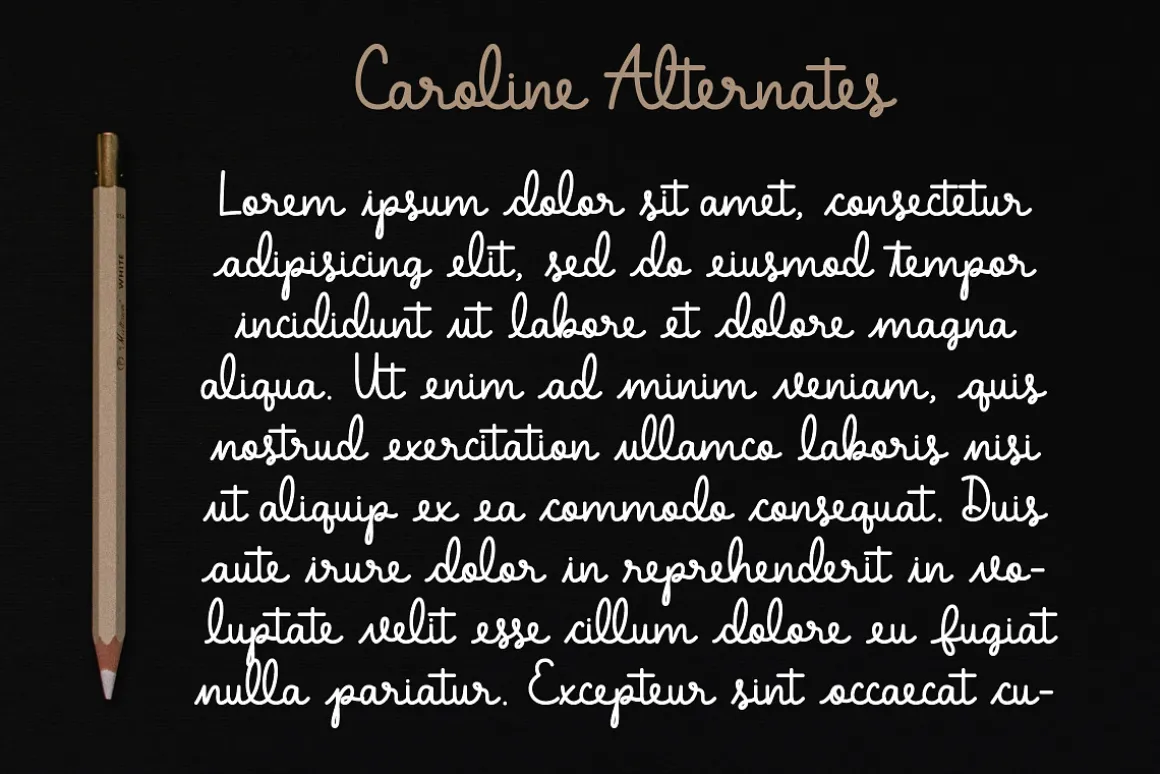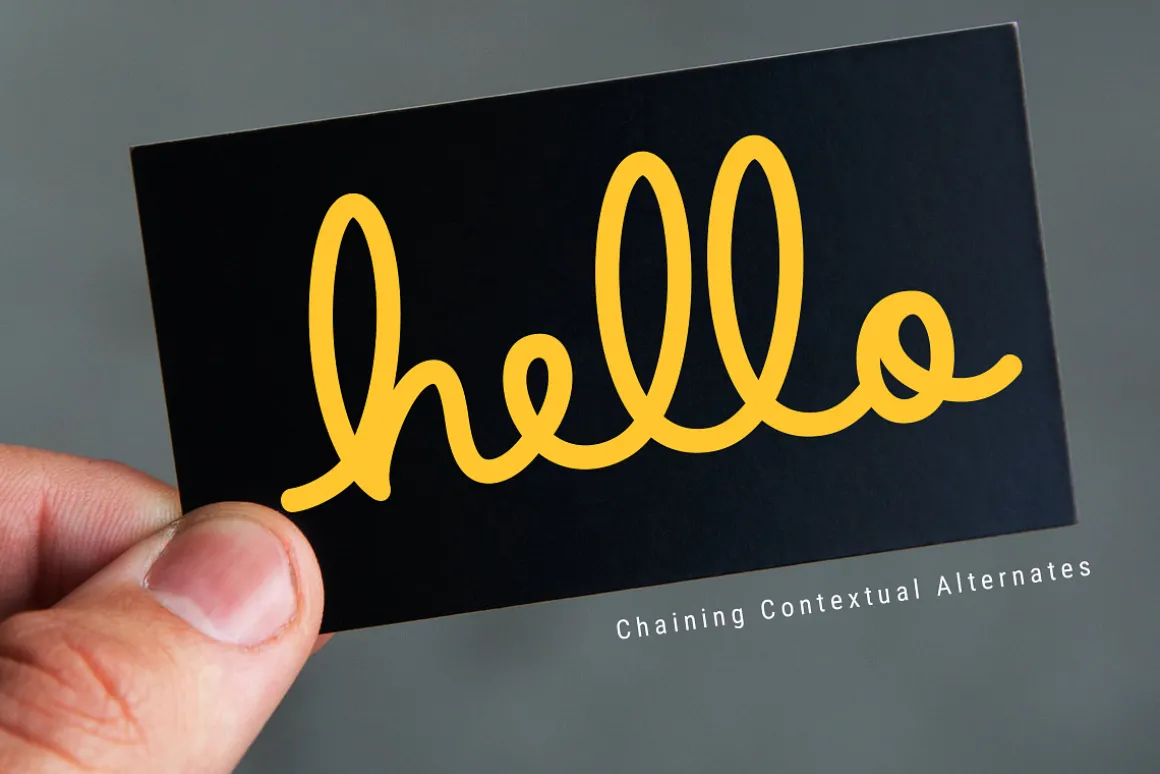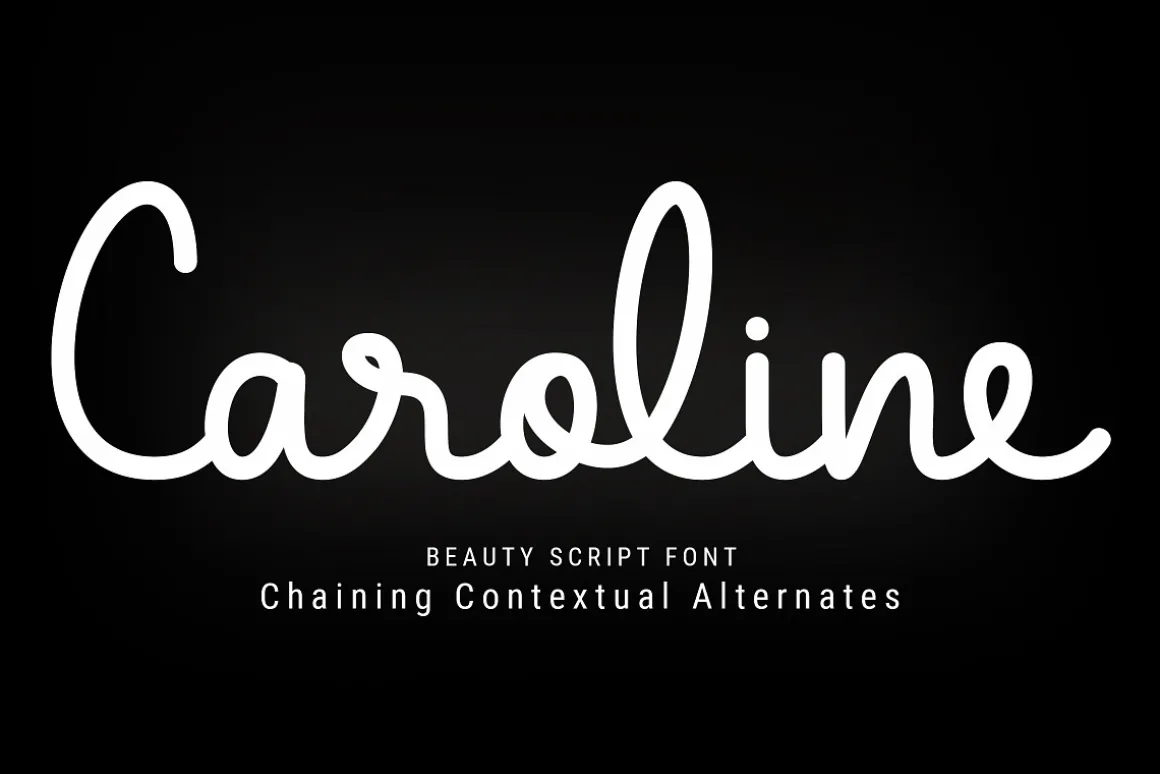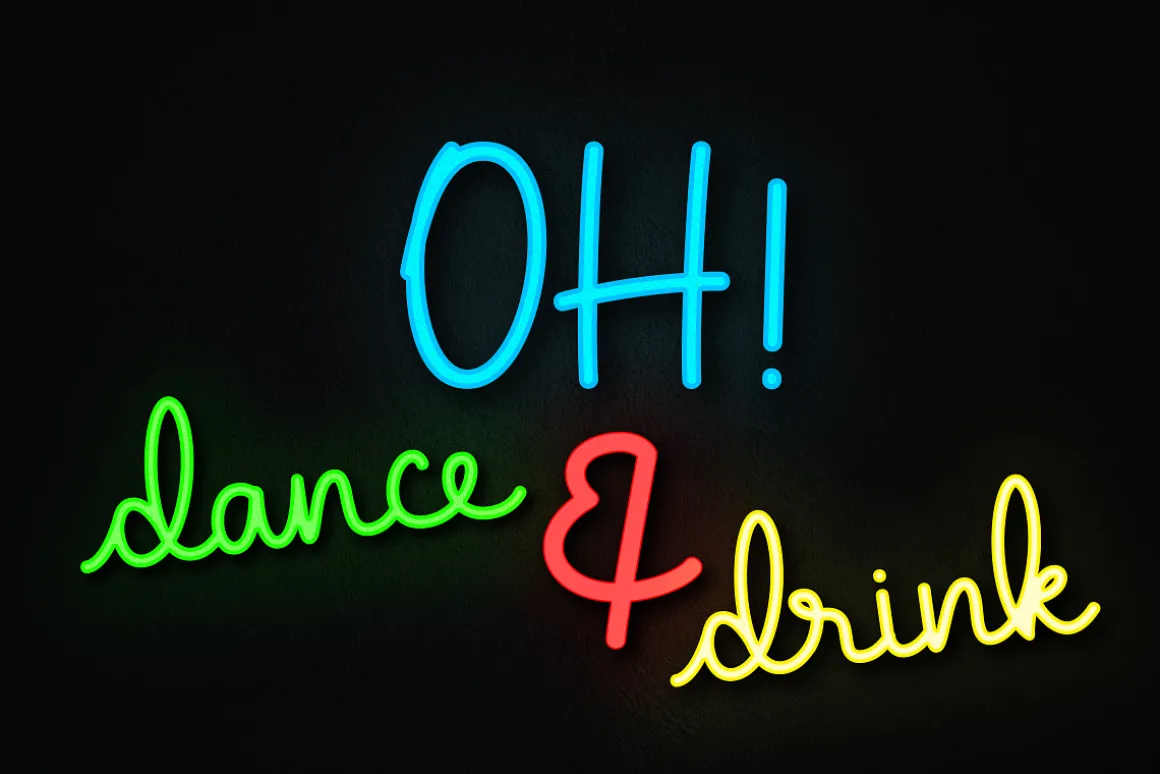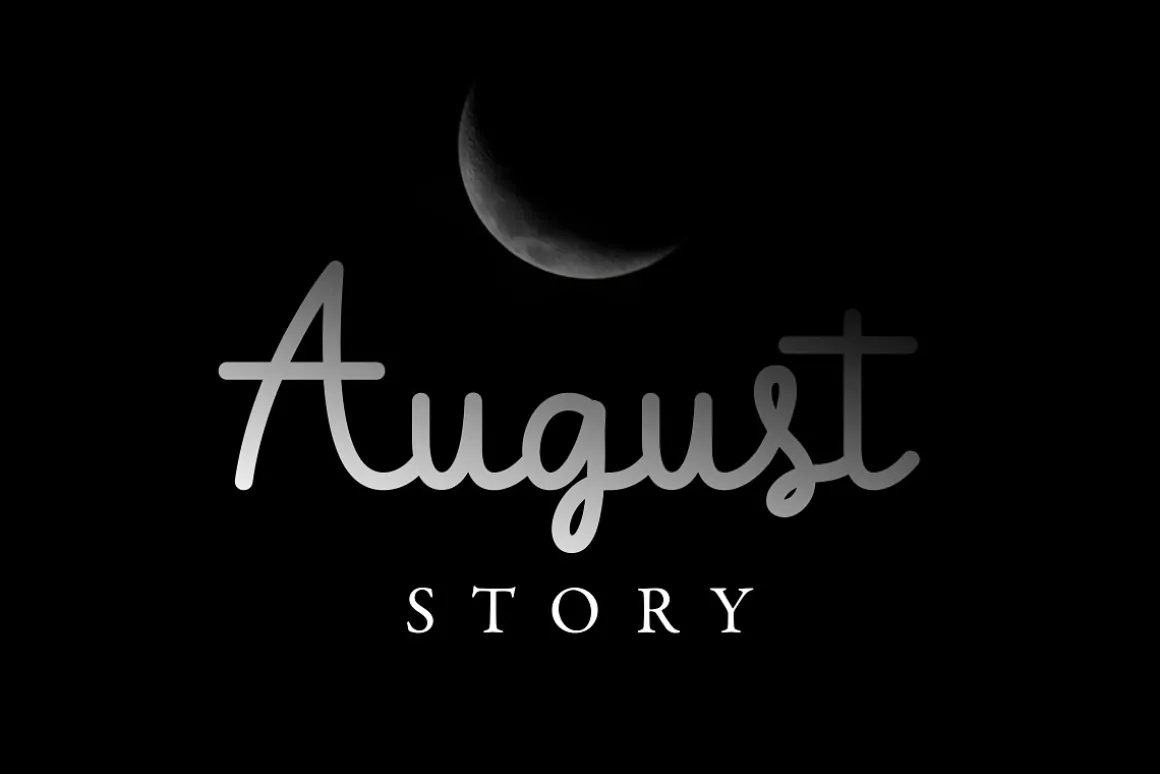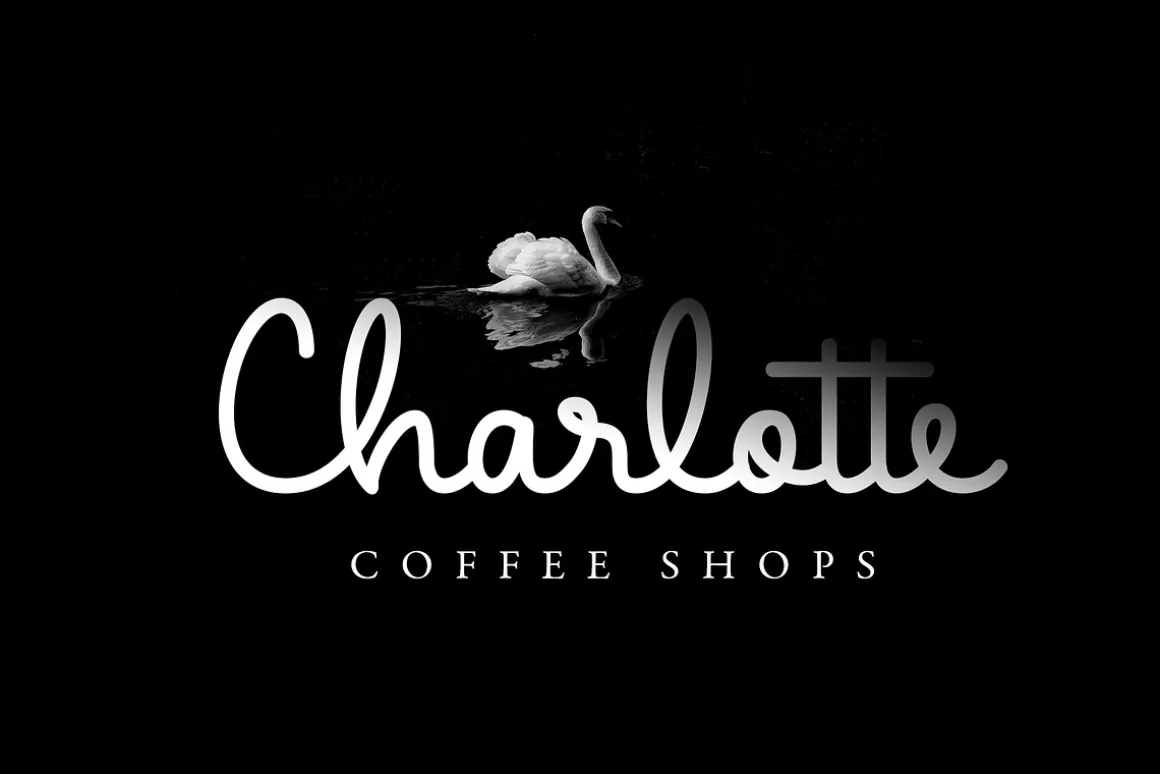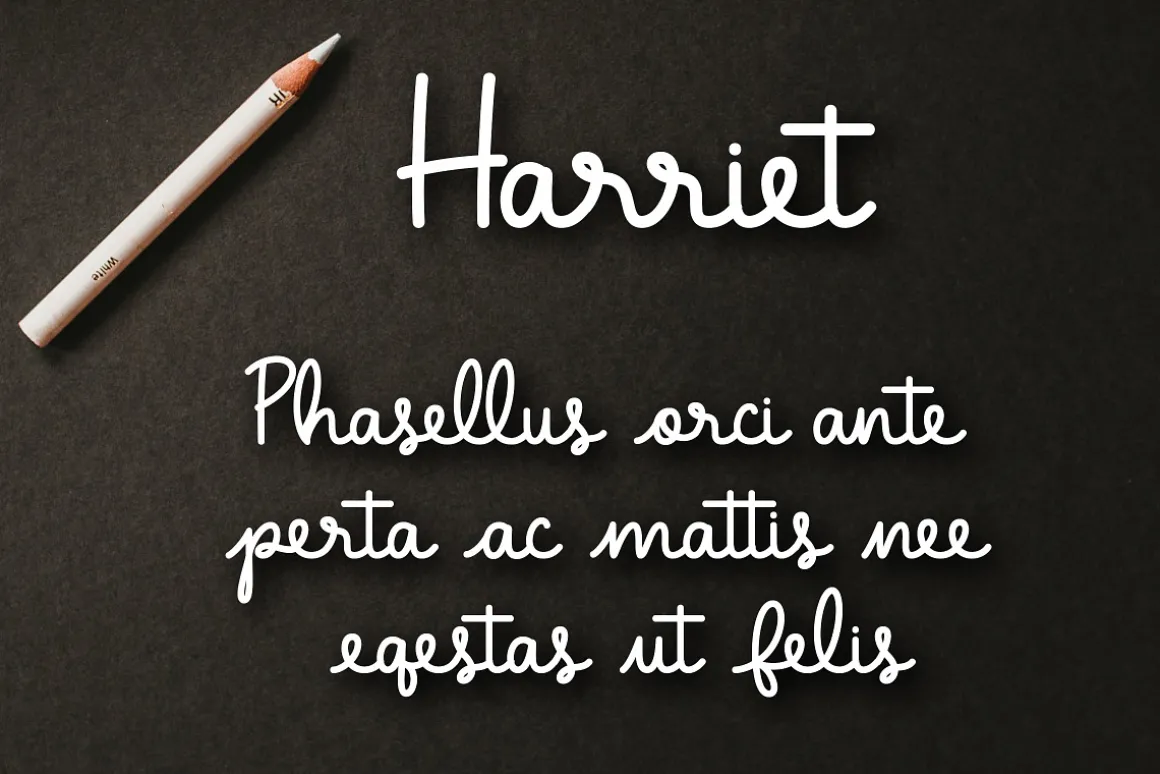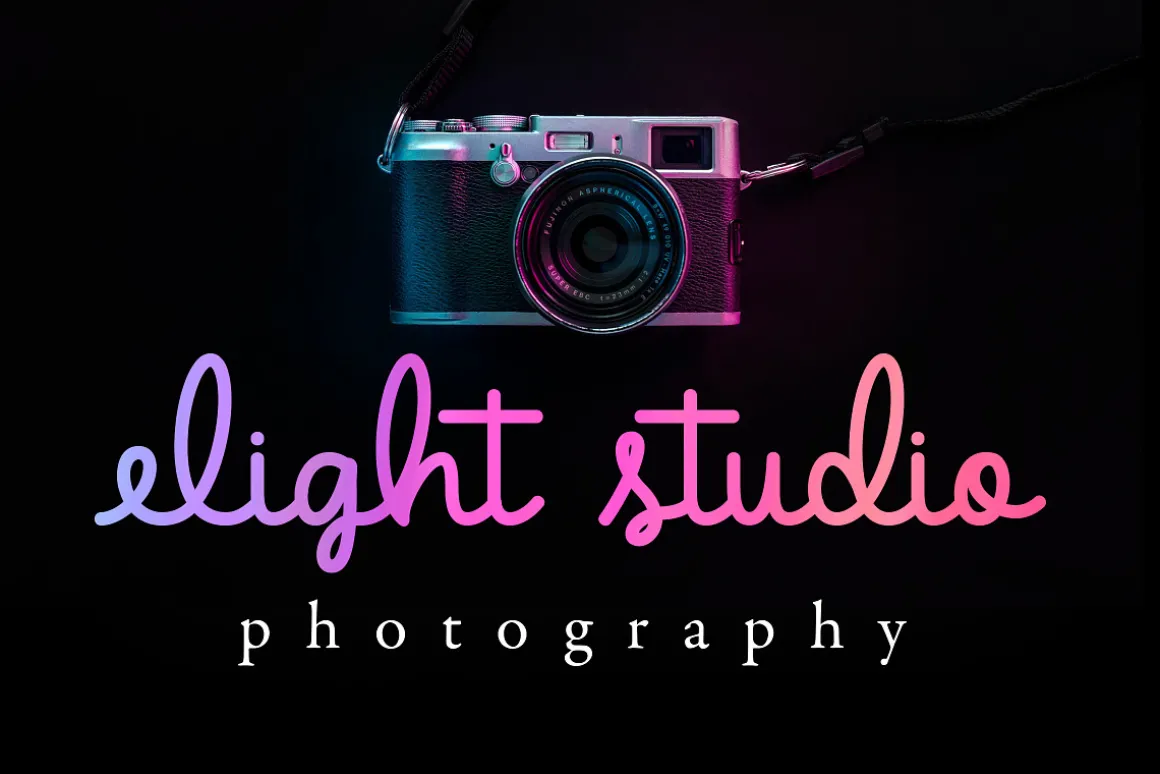
Caroline is a monoline script font with cursive style, as many characters are smoothly connected. This lovely typeface is great for designers who are seeking a natural and authentic style in their creations! This gorgeous font includes all lowercase and uppercase characters, numbers, punctuation, alternate ,an array of standard ligatures and a selection of international characters as well (please type in the preview below to see if I have what you need!)